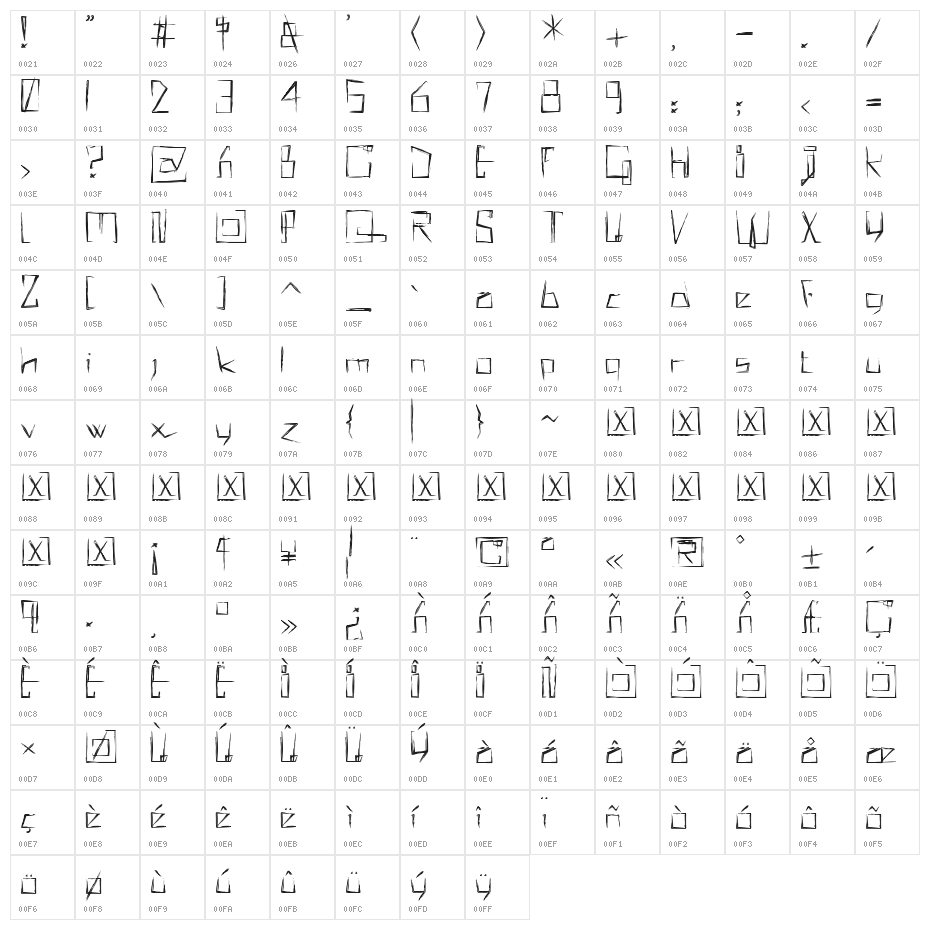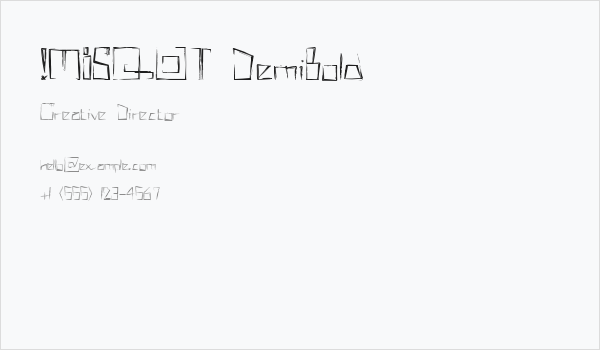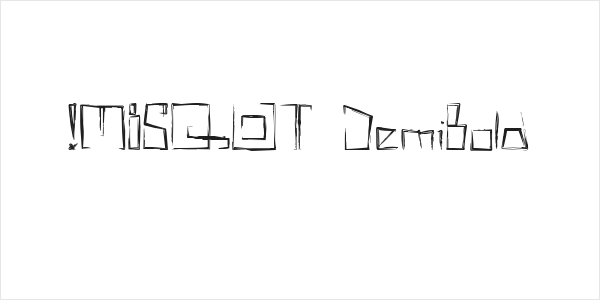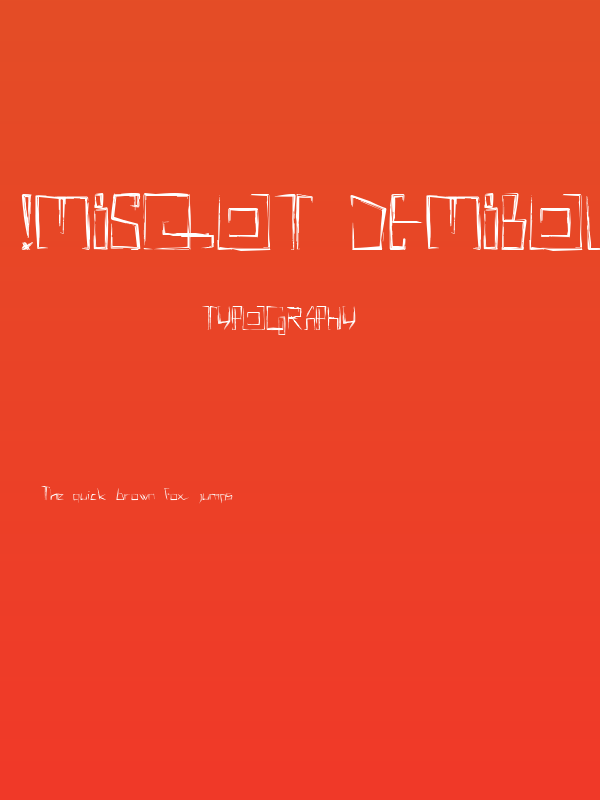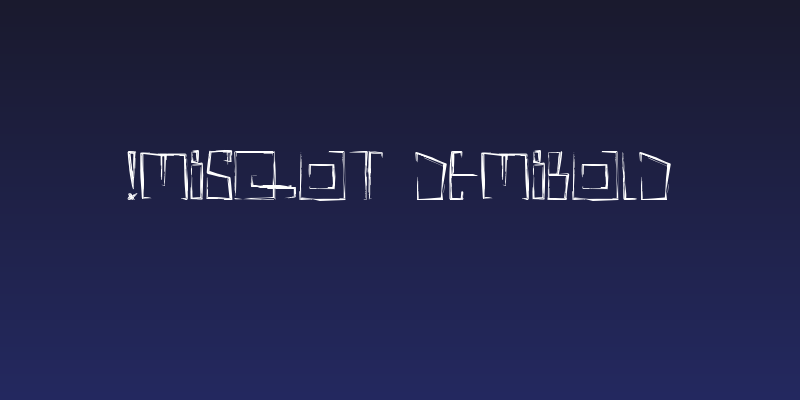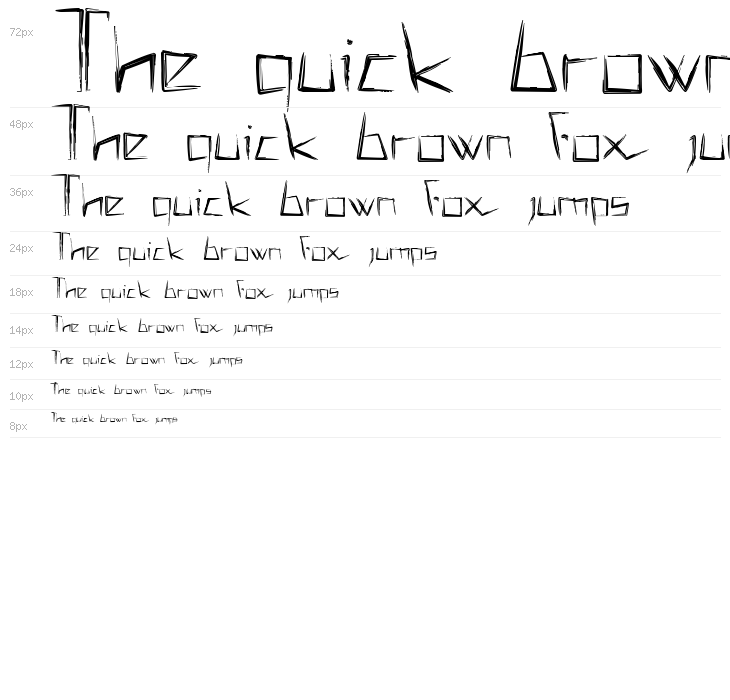
!MISQOT DemiBold Font
!MISQOT DemiBold Description
This font features a unique, edgy design with sharp, angular lines and a hand-drawn aesthetic. The characters are bold and striking, with a slightly irregular form that adds to its dynamic appearance. The uppercase and lowercase letters maintain a consistent style, while the numerals and special characters complement the overall look. The font's distinctive style makes it stand out, perfect for projects that require a modern and artistic touch.
Overall StyleModern, Artistic
Proposed ProjectsIdeal for album covers, posters, branding, and any creative projects that require a bold statement.